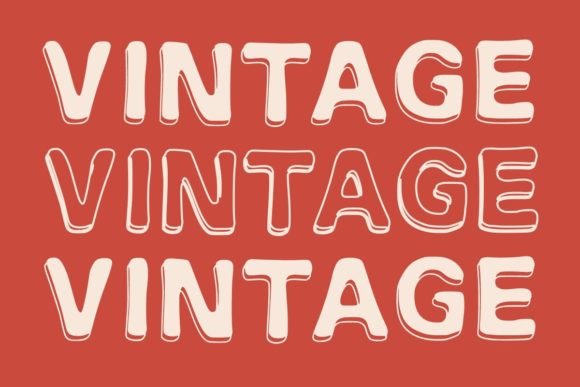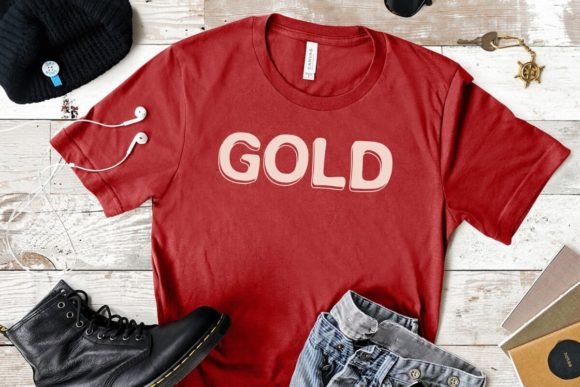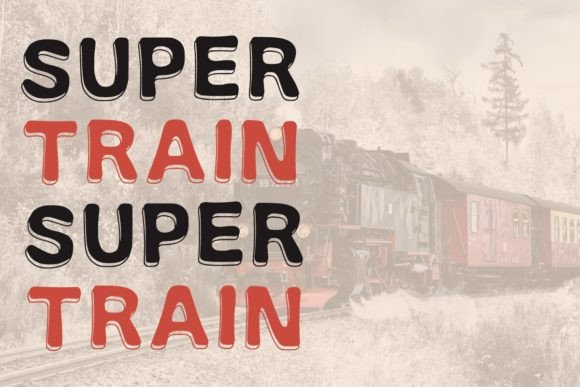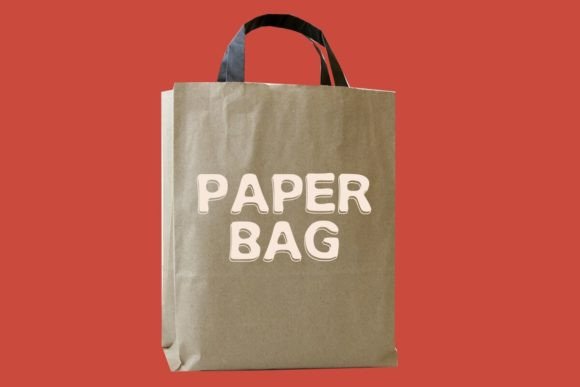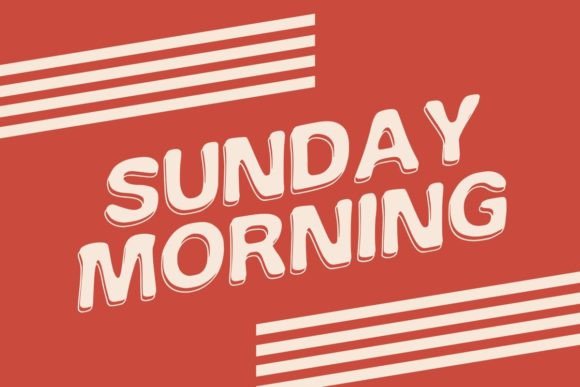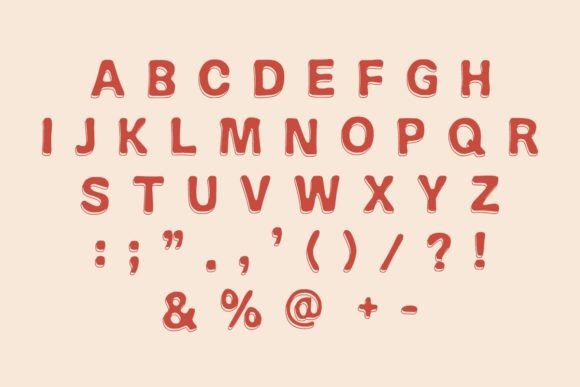
Introduction to Phoenix Retro Font
Do you remember the thrill of digging through your grandfather’s attic, unearthing old family photographs and dusty vintage posters? The nostalgia and charm of bygone eras can be incredibly inspiring, and for designers, this feeling can translate into the perfect creative spark. For those who love the aesthetic of classic retro design, the Phoenix Retro Font is a dream come true.
This vintage, classic, retro, and bold display font is a valuable design resource for any creative project. Whether you’re working on a blog post, designing a logo, or crafting an invitation, the Phoenix Retro Font adds a touch of elegance and sophistication. And the best part? It’s available for free download, making it accessible to designers of all levels.
With its high-quality design and transparent background, the Phoenix Retro Font is the perfect choice for any project that demands a touch of retro charm. In this article, we’ll delve into the world of this amazing font and explore its many uses and benefits.
Key Features of Phoenix Retro Font
- Unique blend of vintage and modern design elements, perfect for creative projects.
- High-quality font with transparent background, ideal for use on various design resources.
- Perfect for use in creative projects, such as posters, flyers, and brochures, requiring a high-quality, retro-inspired font.
Honest Review: Phoenix Retro Font
I recently stumbled upon the Phoenix Retro Font while searching for a unique design resource for my next creative project. As a designer, I appreciate high-quality fonts that can add a touch of personality to my work. This font did not disappoint!
Here are some aspects that I think work well: ✨
- Unique and retro-inspired design that sets it apart from more common fonts.
- High quality, making it perfect for printing or digital use.
- Transparent background, allowing for easy customization.
However, there are a few limitations I’d like to mention: ⚠️
- The font may not be suitable for projects that require a more modern or minimalist look.
- The character set is not as extensive as some other fonts I’ve used.
Overall, I’m really impressed with the Phoenix Retro Font. Its unique design and high quality make it a great addition to my design arsenal. While it may have some limitations, I think it’s a great choice for the right project. If you’re looking for a fun and creative font for your next project, I’d definitely recommend checking it out.
Tips for Getting the Most Out of Phoenix Retro Font
To maximize the impact of Phoenix Retro Font, experiment with different font sizes, colors, and styles. Combine it with other design elements to create a unique and eye-catching visual effect. Additionally, use the font in conjunction with other design resources to enhance the overall aesthetic of your project.
Phoenix Retro Font is ideal for a range of creative projects, including:
- Graphic design and branding
- Digital art and illustrations
- Document creation and publishing
- Marketing materials and advertising
Alternatives to Phoenix Retro Font
Fontin is a high-quality, vintage-inspired font suitable for creative projects that require a classic feel. It’s available for free download and features a transparent background, making it easy to use as a design resource. When to use: Designing retro-themed websites, posters, or advertisements. Compared to Phoenix Retro Font, Fontin has a more elegant and refined look, making it ideal for projects that require a touch of sophistication.
Great Vibes is a fun, energetic font that’s perfect for creative projects that need a playful touch. It’s a free download and features a transparent background, making it easy to use as a design resource. When to use: Designing websites, social media graphics, or posters for music festivals or concerts. Compared to Phoenix Retro Font, Great Vibes has a more modern and energetic feel, making it ideal for projects that require a youthful vibe.
Q: What’s the recommended usage for the Phoenix Retro Font?
The Phoenix Retro Font is designed for a wide range of creative projects, including graphic design, web design, and digital art. You can use it for titles, headings, and body text, or as a design element in your project. With its high-quality design and versatile style, the Phoenix Retro Font is sure to elevate your creative project to the next level.